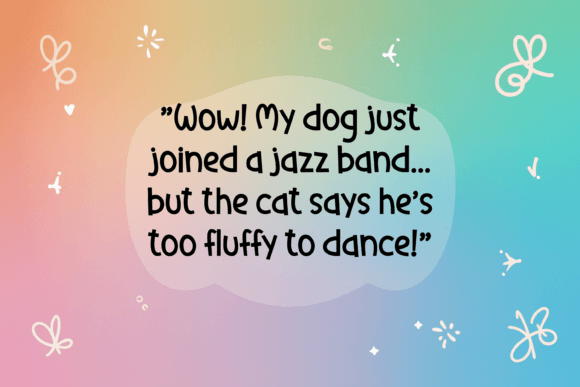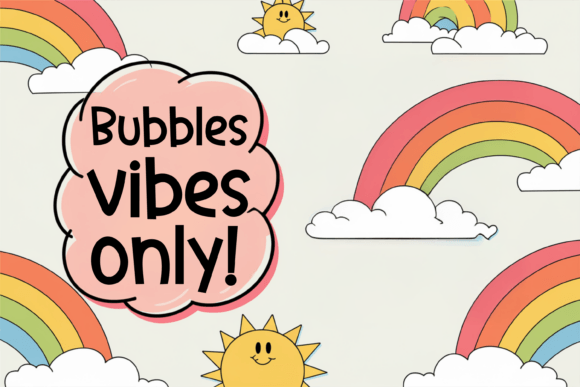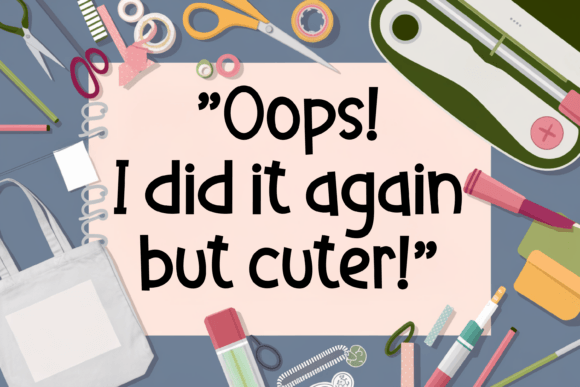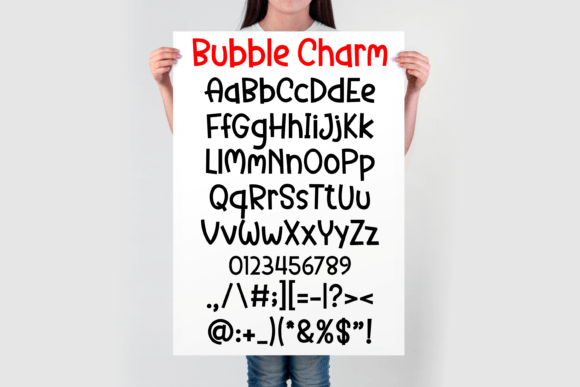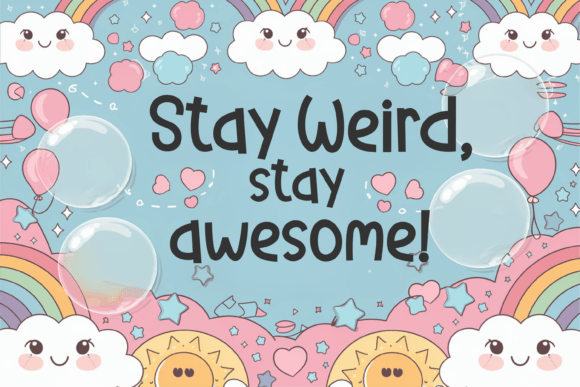
The Ultimate Design Companion: Bubble Blast Font
Meet the Bubble Blast Font, a hand-drawn treasure that brings an infectious energy to any design project. Its playful, rounded alphabets are designed to add a dash of fun and whimsy to your Cricut creations, Silhouette designs, Canva projects, and digital crafting endeavors. Whether you’re crafting stickers, creating t-shirt designs, or adding flair to your social media posts, the Bubble Blast Font is the perfect companion to help you stand out and make your projects truly pop.
- Unique Characteristics: Hand-drawn, bubbly design with a playful and whimsical feel, perfect for creating a fun and engaging atmosphere.
Bubble Blast Font Review
I recently had the chance to work with the Bubble Blast Font, and I’m excited to share my honest thoughts on it.
- The font’s playful and whimsical feel is perfect for creating a lighthearted and fun atmosphere.
- The font’s bold and rounded edges make it easily readable, even at smaller sizes.
- The font’s versatility allows it to work well in a variety of design contexts, from children’s books to advertising materials.
- The font may not be suitable for more formal or professional designs, as its playful nature may not convey the desired level of sophistication.
- The font’s bold style may not be ideal for designs where a more subtle approach is needed.
- The font’s rounded edges may not be the best choice for designs where a more sharp or angular feel is desired.
Overall, the Bubble Blast Font is a fun and versatile font that can add a playful touch to a variety of designs. While it may not be the best choice for every project, it’s definitely worth considering for designs that need a lighthearted and engaging feel.
The Bubble Blast Font is ideal for creating playful, eye-catching designs for children’s products, party invitations, and social media graphics. It’s also great for adding a touch of whimsy to headings and titles in any design project.
Comparison to Bubble Blast Font: While both fonts share a playful vibe, Great Vibes is more elegant and refined, making it suitable for a wider range of applications. Bubble Blast Font is more cartoonish and bold, ideal for kids’ content or whimsical designs.
Comparison to Bubble Blast Font: Pacifico is more refined and elegant, while Bubble Blast Font is bolder and more playful. Pacifico is ideal for creating a sense of calm, whereas Bubble Blast Font is better suited for energetic and playful designs.